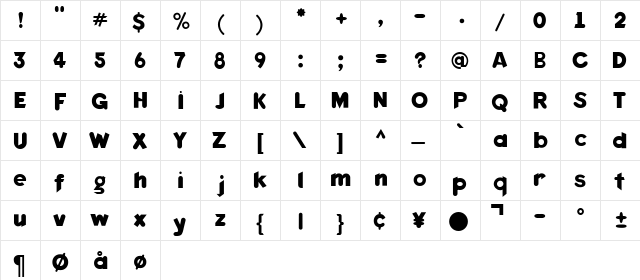
KeedySansTwo Medium Font Preview
KeedySansTwo Medium
Design Context for KeedySansTwo Typeface
KeedySansTwo offers clean, dependable letterforms without strong stylistic allegiance, making it a practical choice for designers who need flexibility.
Pro Tip: Pair KeedySansTwo with a font of contrasting weight or personality to build a more expressive typographic hierarchy.